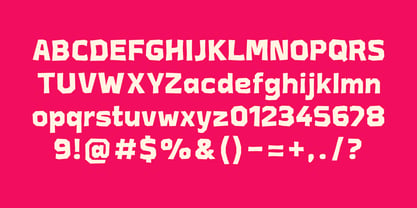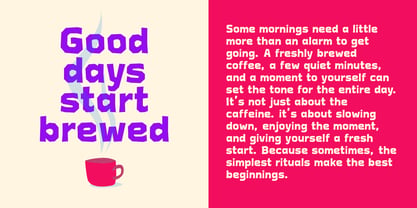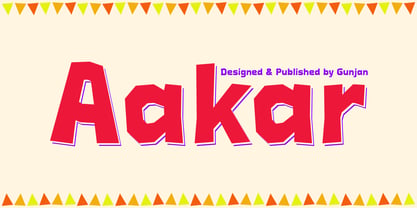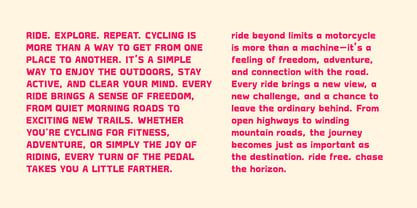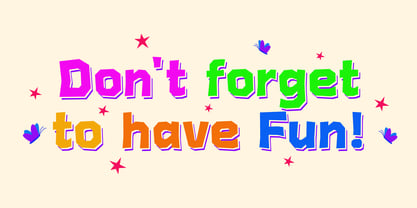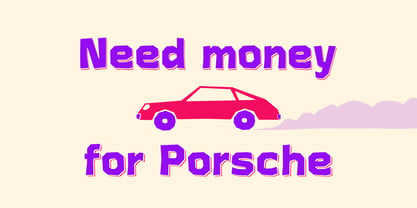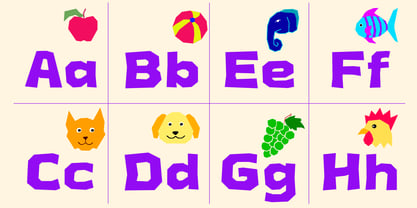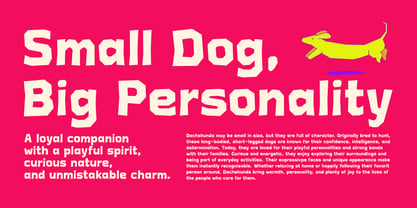
Aakar
by Gunjan
Aakar Regular is a playful and expressive typeface inspired by the visual character of paper-cut and folded-paper forms. Designed to bring a handcrafted feel to modern typography, Aakar combines simple, friendly letterforms with distinctive details that give every word a sense of personality and movement. Its unique construction creates an interesting visual rhythm while keeping the letters clear, approachable, and versatile.
Designers: Gunjan Panchal
Foundry: Gunjan